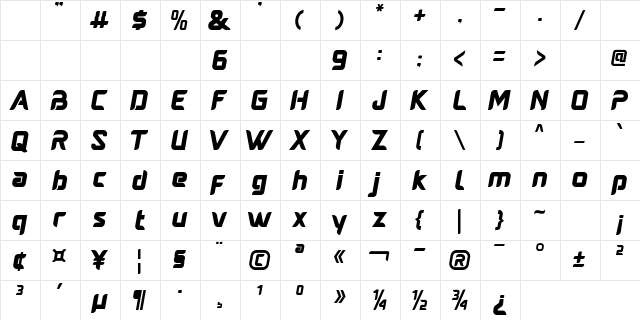
Averus Regular
Design Context for Averus Typeface
Averus is a composed and adaptable typeface that performs quietly and consistently across a wide range of design contexts.
Pro Tip: Pair Averus with a font of contrasting weight or personality to build a more expressive typographic hierarchy.